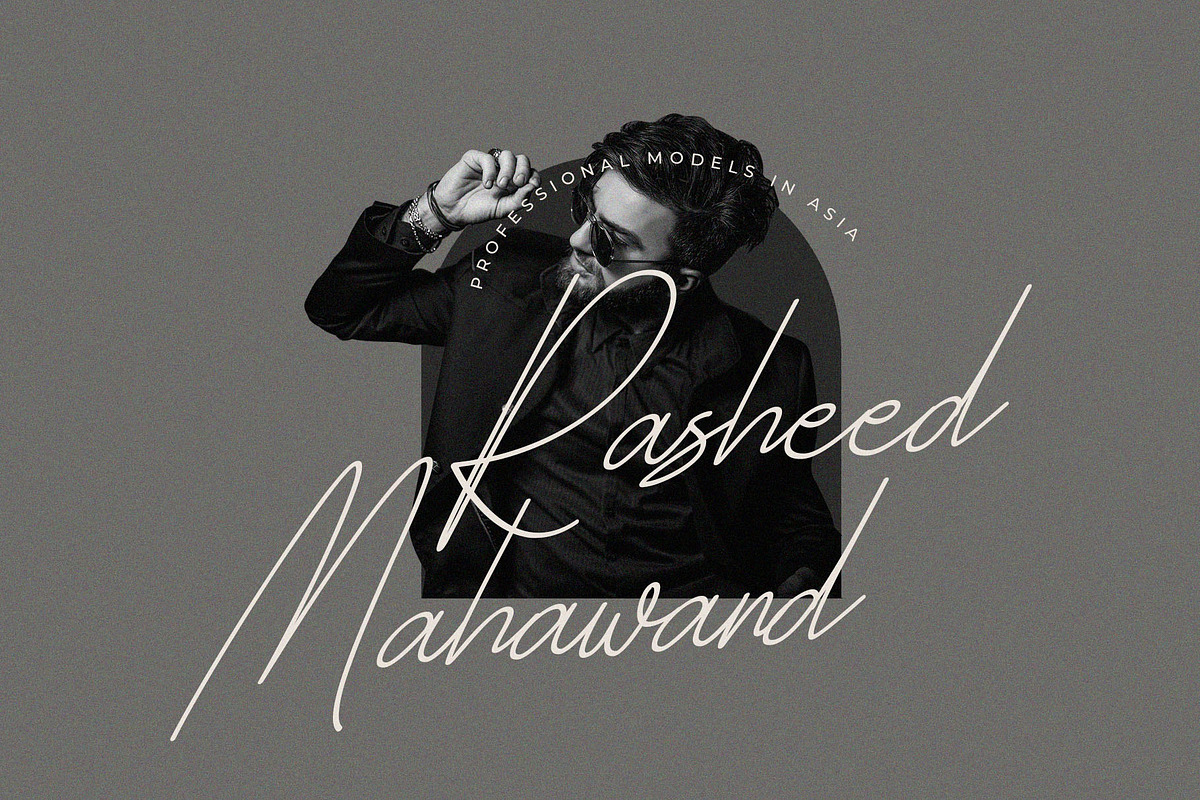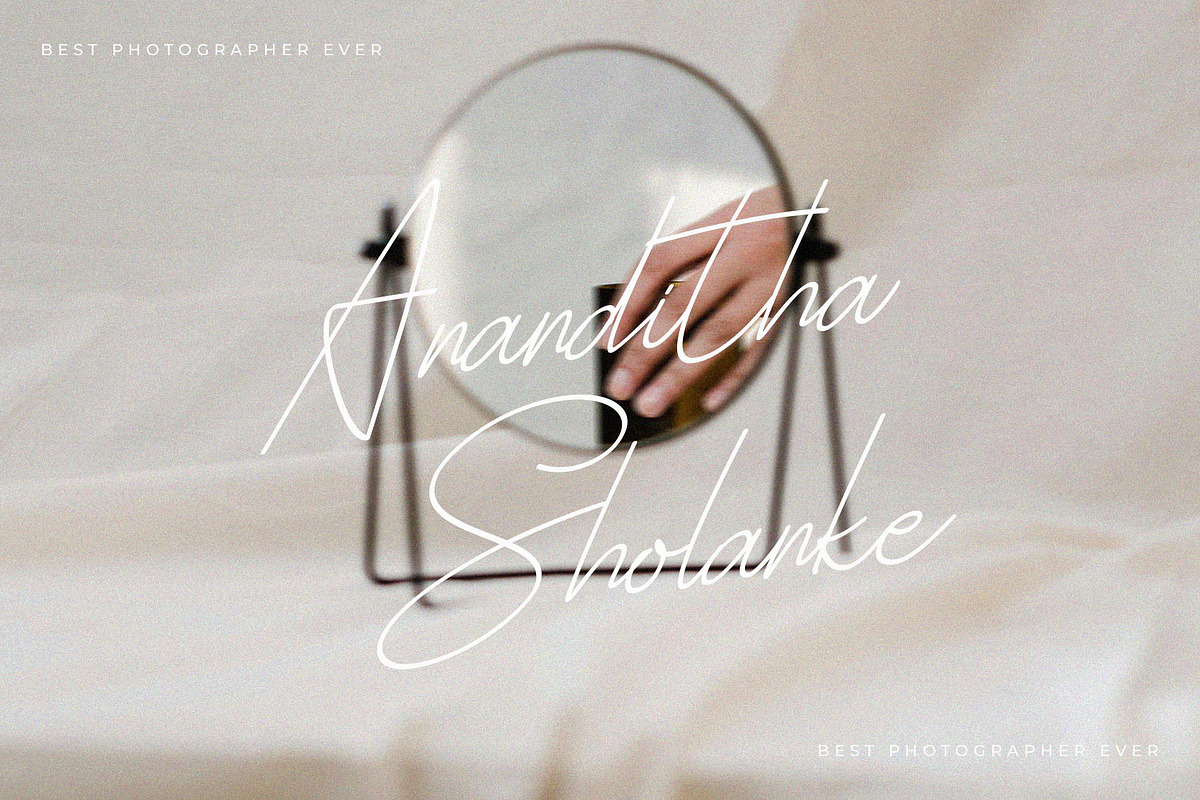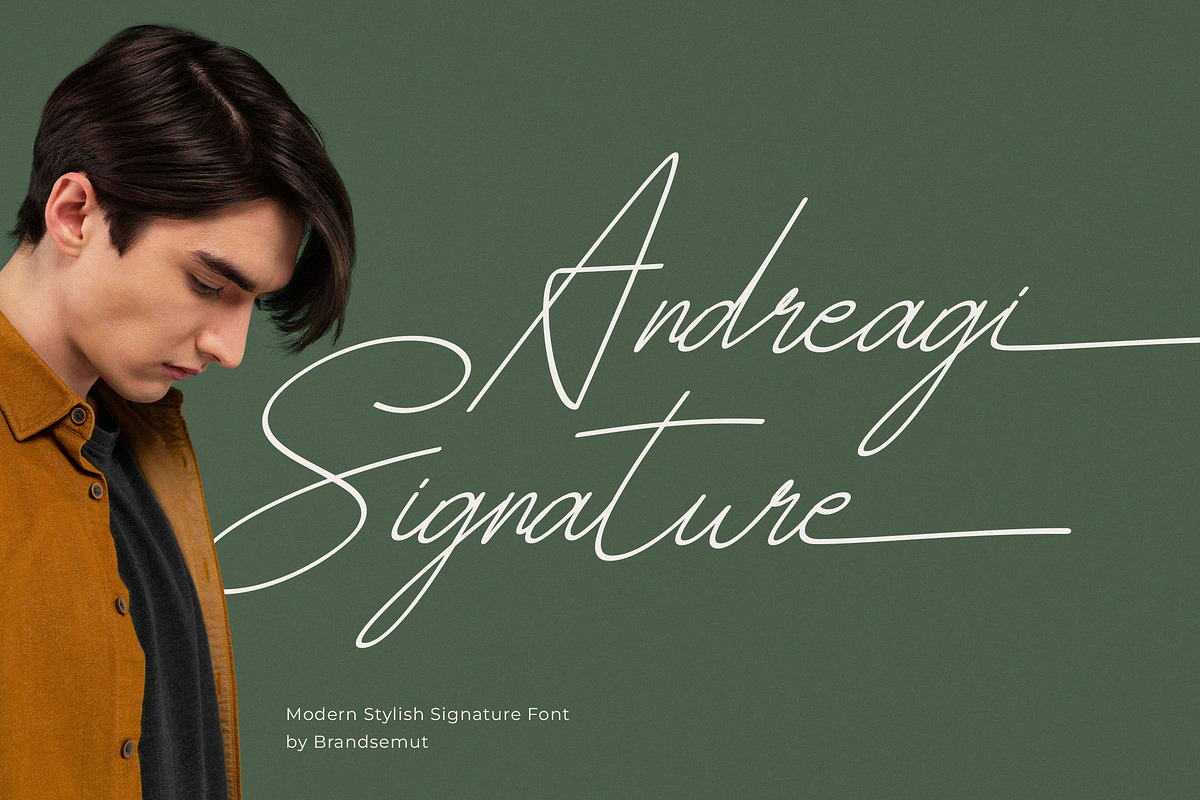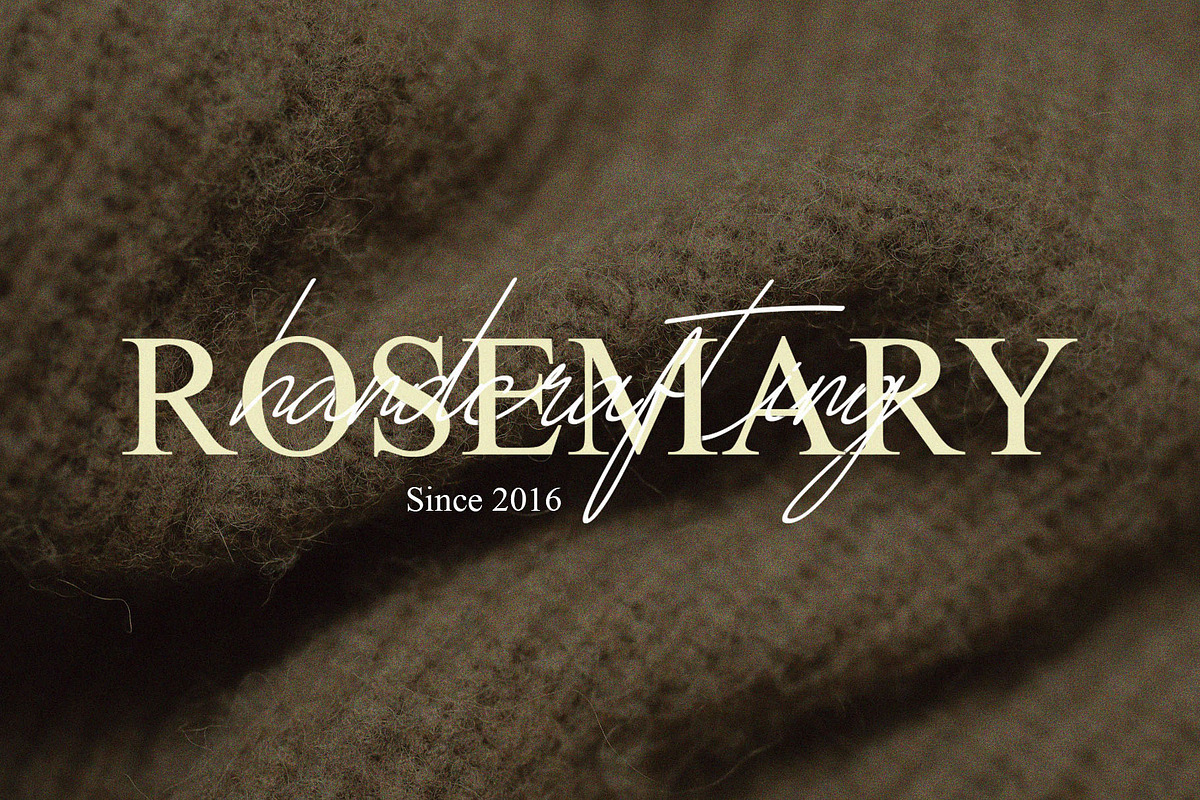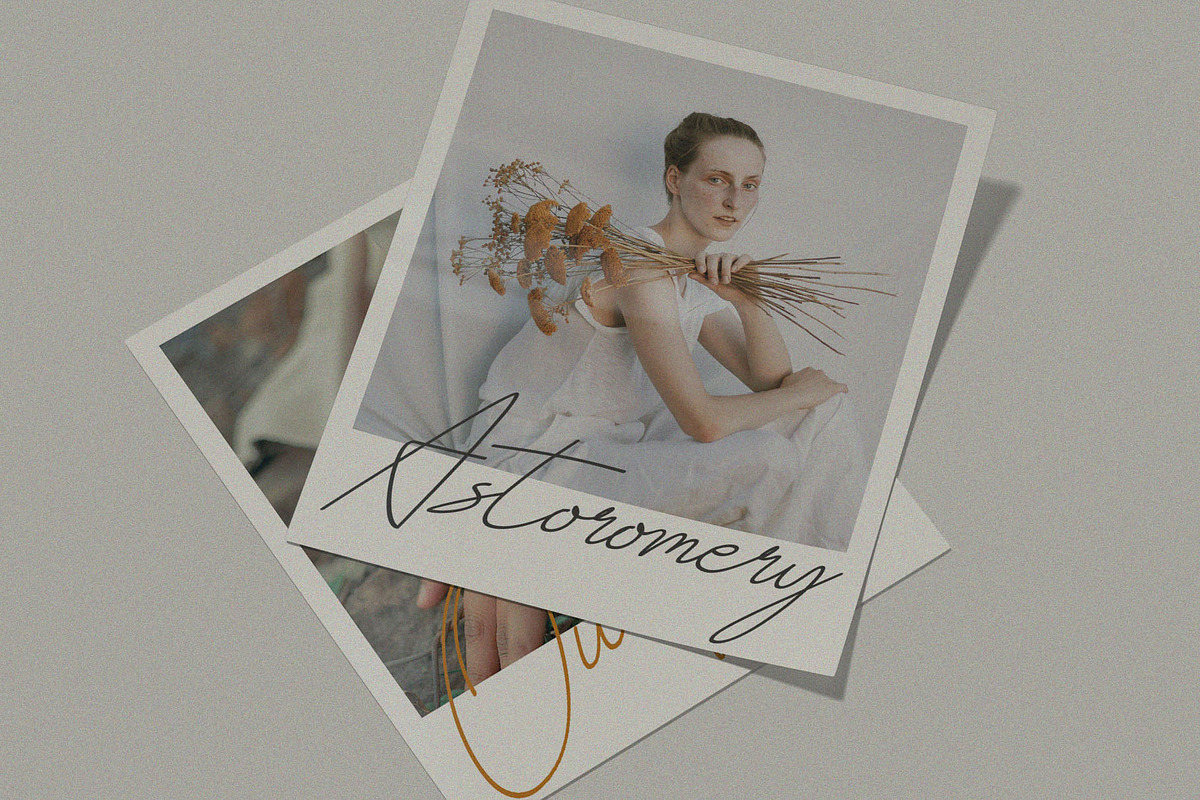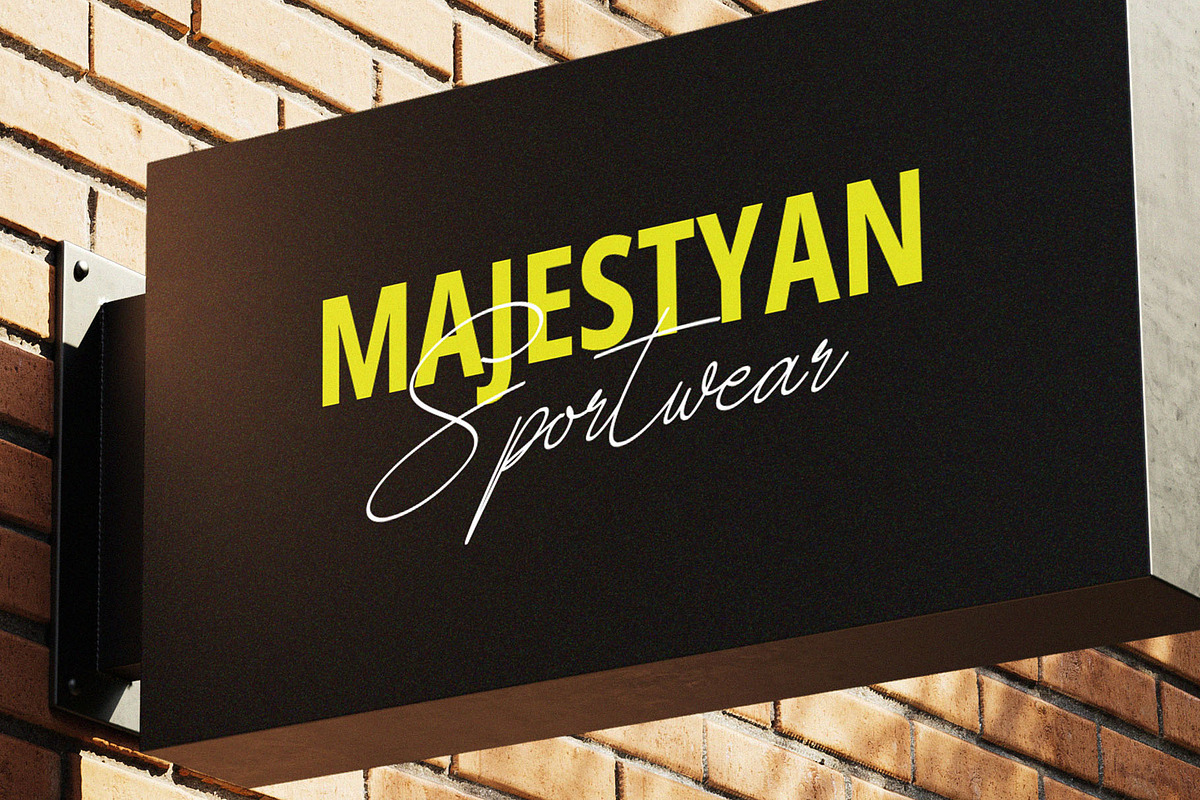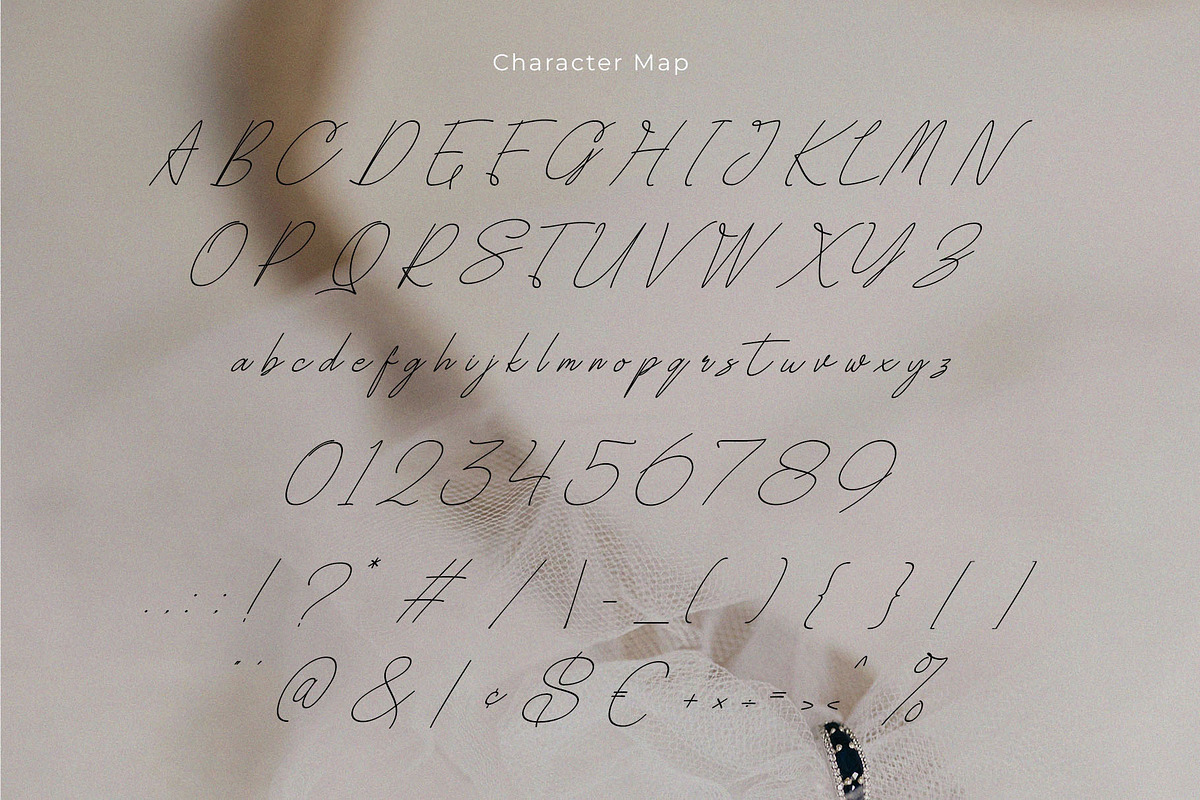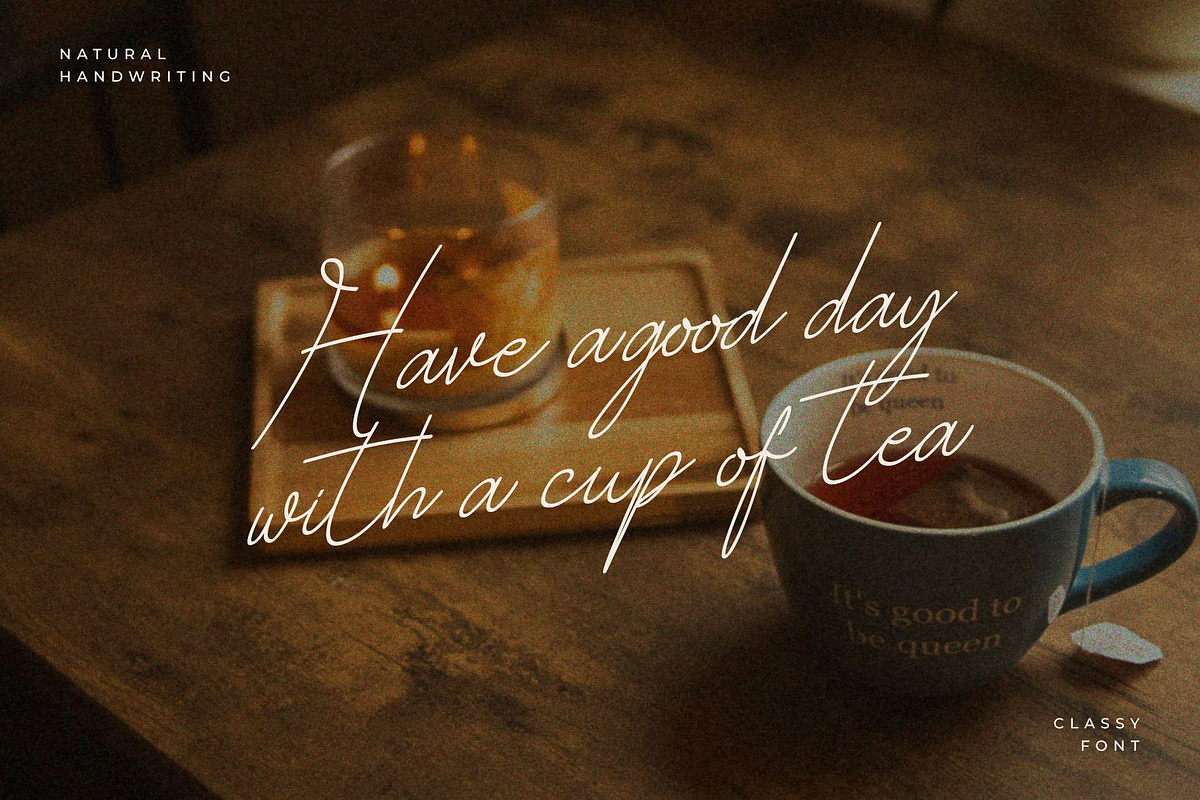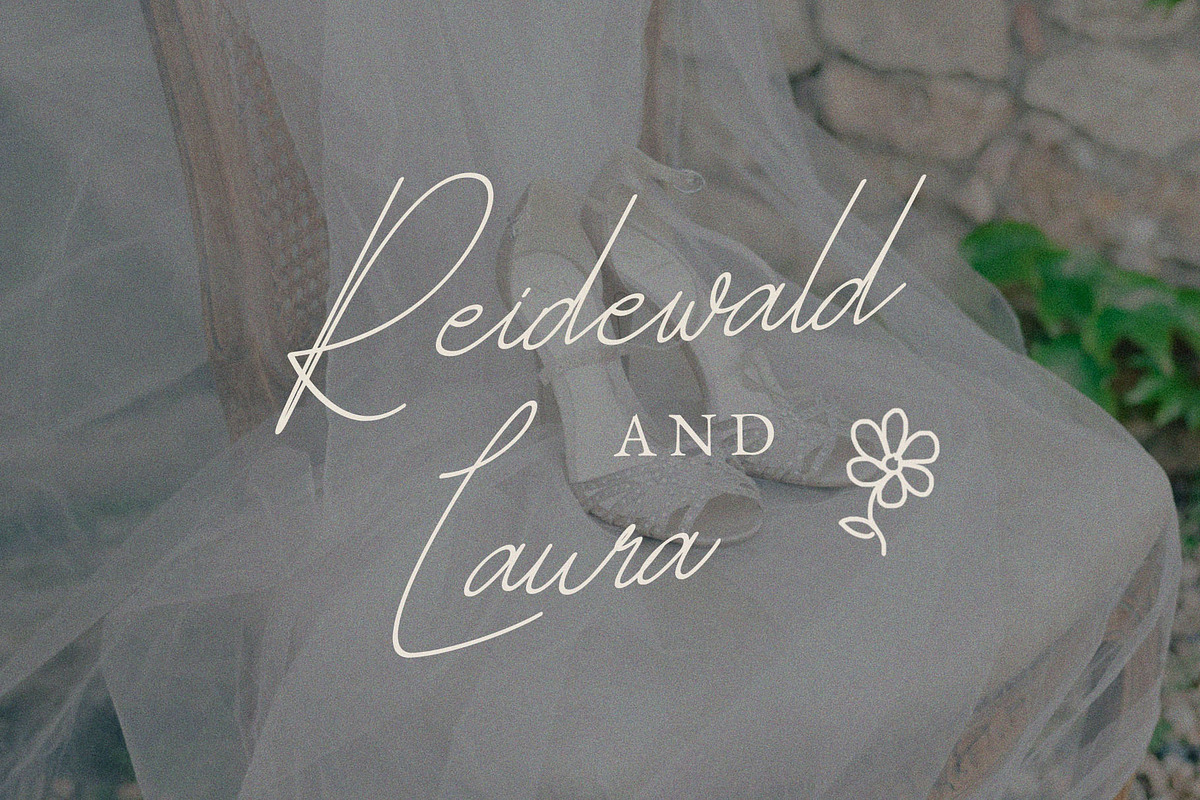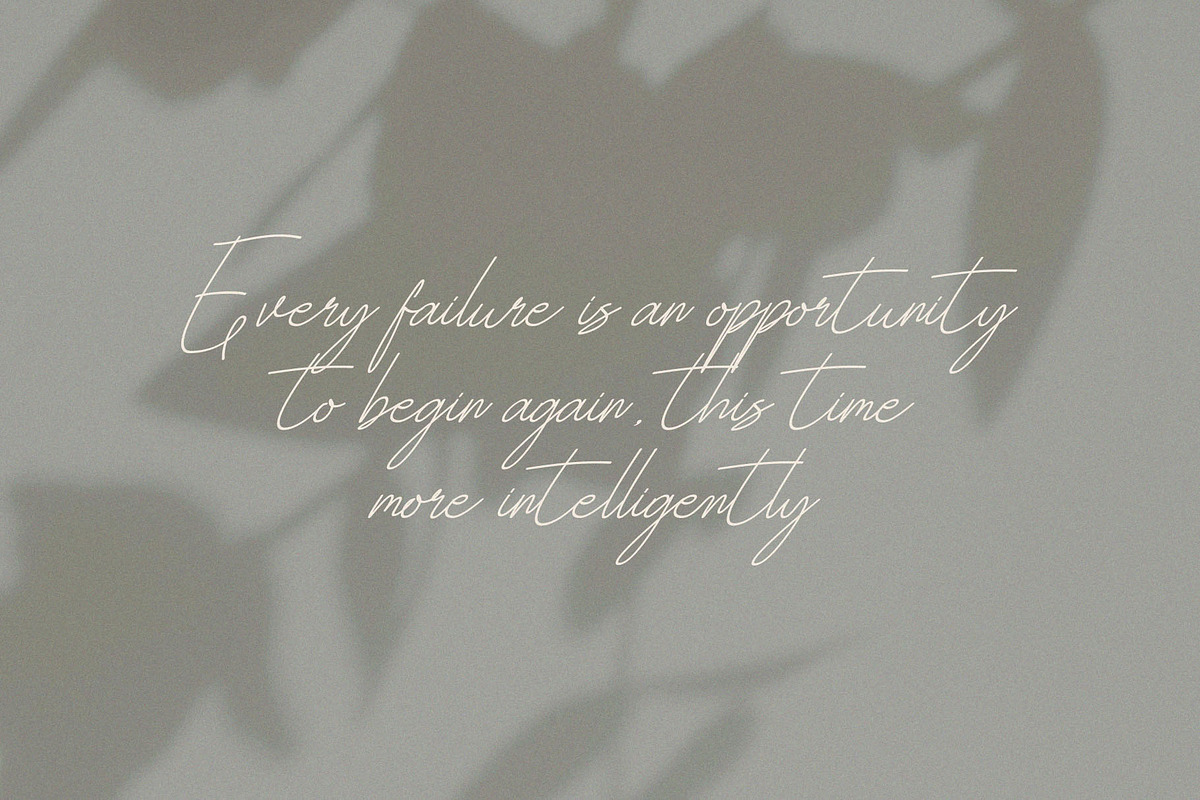
Andreagi Signature – Modern Script
Introducing the new Andreagi Signature Font is a elegant and stylish handwritten script, that you can use to perfect your design. You will get full set of lowercase and uppercase letters, multilingual, numerals and punctuation.